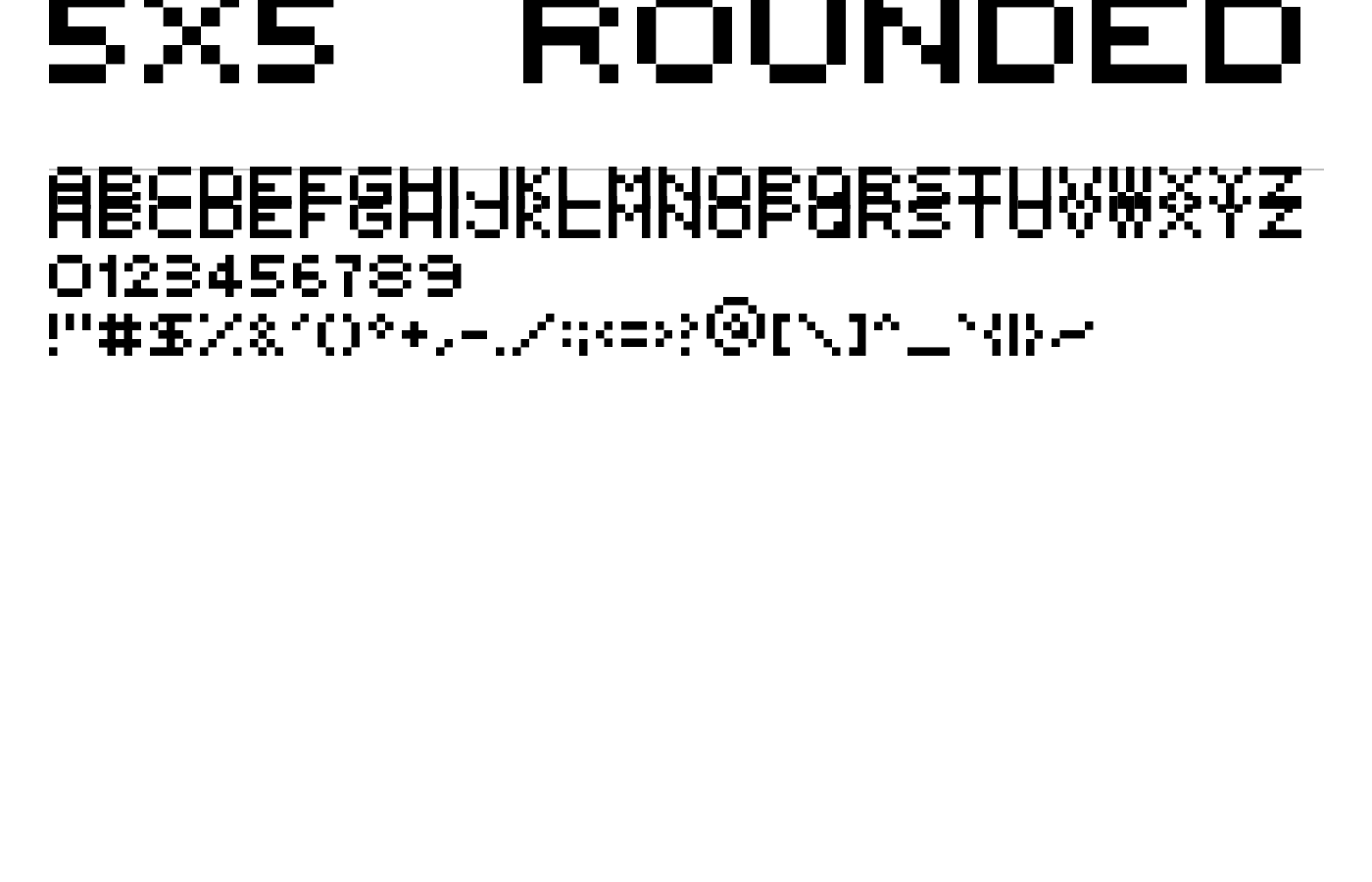
5x5 Rounded is a pixel-style sans serif font characterized by its uniform, blocky letterforms with subtly rounded edges, creating a friendly yet digital aesthetic. Its compact, monospaced design and minimal stroke contrast make it ideal for retro-inspired projects, tech-themed designs, and playful interfaces where clear readability and a nostalgic vibe are desired. This font works especially well for logos, video games, and digital displays, offering a unique blend of vintage pixel charm and modern clarity.
5x5 rounded Font
About 5x5 rounded Font